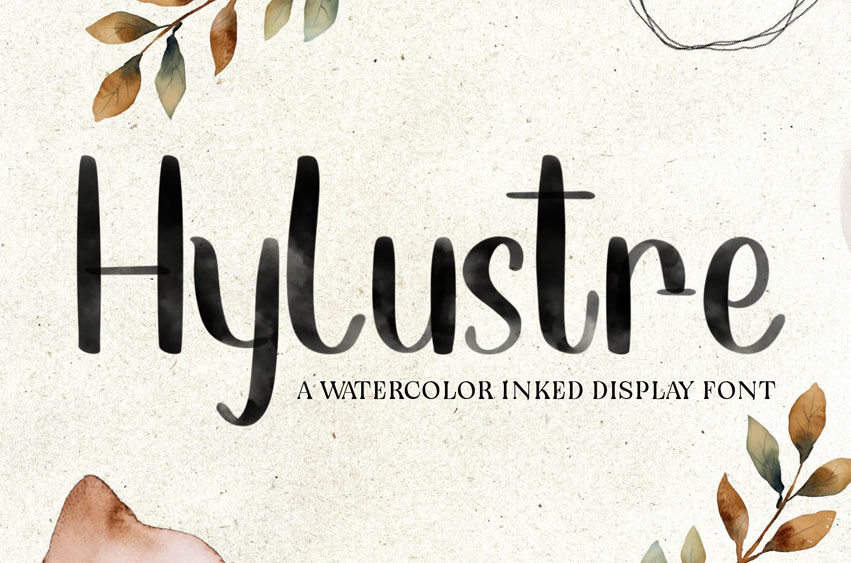
Hylustre Font
Hylustre Font is a watercolor-inked display font that beautifully merges artistic charm with modern elegance. Each letter is hand-rendered to evoke the fluidity of watercolor strokes, giving the font a naturally inky, semi-transparent texture that feels both organic and refined.
With a playful yet sophisticated presence, Hylustre is ideal for branding, wedding invitations, lifestyle blog headers, packaging, and any project seeking a touch of creative warmth and soft personality.
The font’s gentle curves and subtle irregularities bring a handcrafted authenticity that pairs well with minimal layouts and earthy aesthetics. Inspired by nature’s movement and the quiet sheen of ink on handmade paper, Hylustre offers both upper and lowercase characters with graceful proportions and versatile readability. Whether you’re creating digital or print work, Hylustre adds a whimsical yet poised voice to your designs.
Hylustre Font Preview